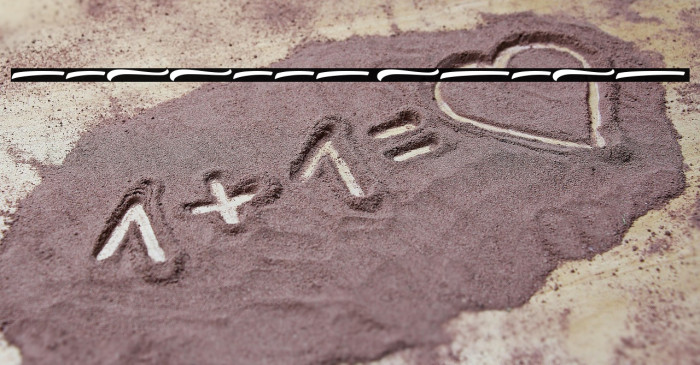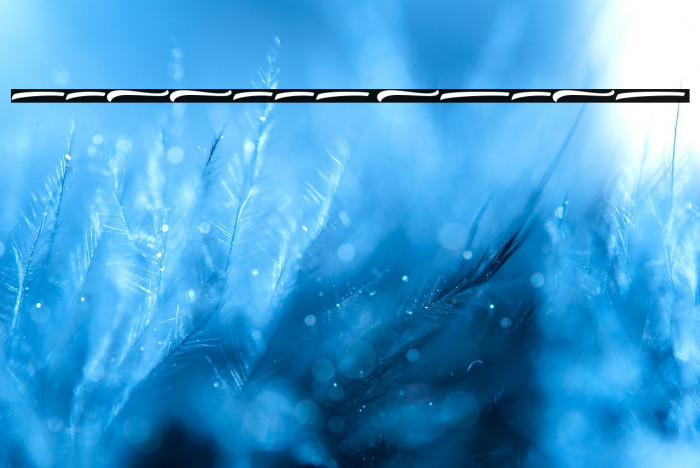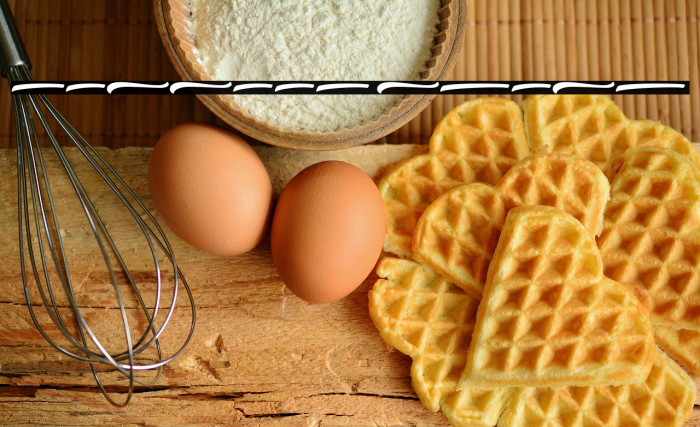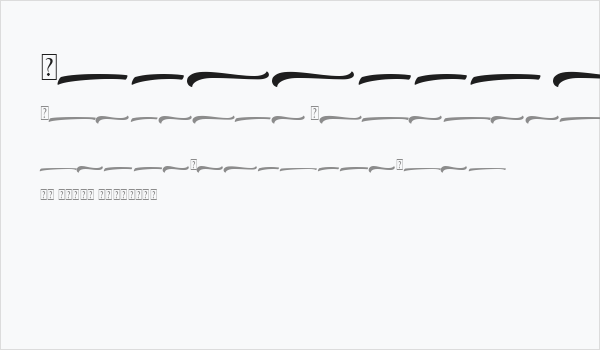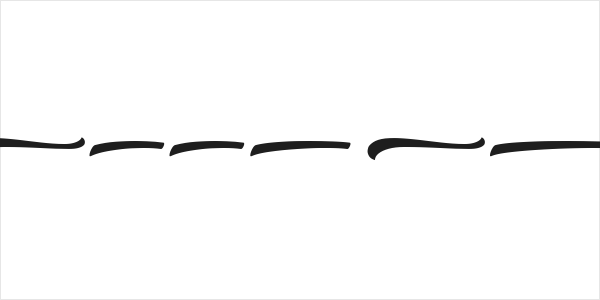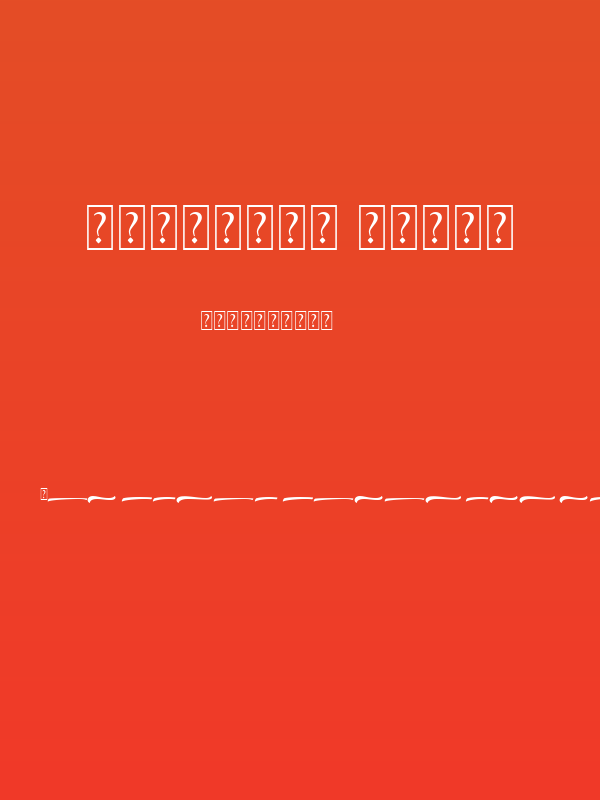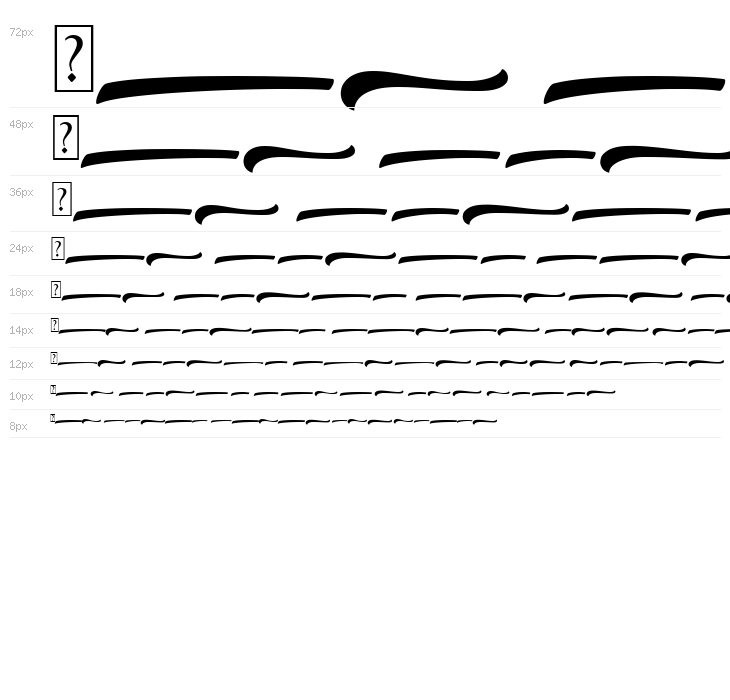
Classual swash Font
Classual swash Description
This font features a decorative and elegant style with swashes that add a touch of sophistication. The characters are adorned with flourishes that extend from the main strokes, creating a sense of movement and fluidity. The design is reminiscent of calligraphic handwriting, with each letter crafted to exhibit a unique flair. The strokes are smooth and flowing, with varying thickness that adds a dynamic contrast to the overall appearance. This font is perfect for projects that require a touch of elegance and creativity, making it suitable for invitations, branding, and artistic designs.
| Use Case | Logos, Invitations, Artistic Designs |
| Proposed Projects | Ideal for wedding invitations, luxury branding, artistic posters, and elegant stationery. |